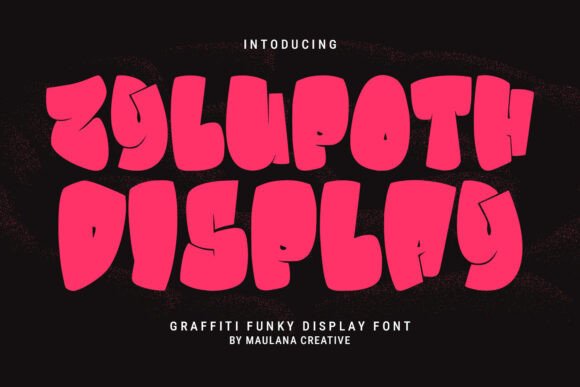
Zylupoth Font: Elevate Your Designs with an Authentic Brush Handcrafted Feel
In the world of graphic design, fonts play a crucial role in conveying the tone and personality of a brand or creative project. With the vast array of fonts available, it can be challenging to find the perfect one that adds a unique touch to your designs. This is where the Zylupoth Font comes in – a game-changing, handcrafted font that gives your designs an authentic, brush-handcrafted feel.
Introducing Zylupoth Graffiti Funky Display Font
The Zylupoth Graffiti Funky Display Font is a one-of-a-kind, handcrafted font designed to add a touch of personality and flair to your designs. With its unique blend of graffiti and funky elements, this font is perfect for designers looking to create bold, eye-catching designs that stand out from the crowd.
Key Features of Zylupoth Font
- Authentic Brush Handcrafted Feel: The Zylupoth Font boasts an authentic, handcrafted feel that adds a touch of warmth and personality to your designs.
- Graffiti-Inspired: With its graffiti-inspired elements, this font is perfect for designers looking to add a bold, edgy touch to their designs.
- Funky and Playful: The Zylupoth Font has a funky, playful vibe that’s perfect for designs that require a bit of personality and whimsy.
- Highly Versatile: This font is perfect for a wide range of design applications, from signature and stationery to logo, typography quotes, magazine or book covers, website headers, flyers, clothing, branding, and packaging design.
Uses of Zylupoth Font
The Zylupoth Font is an incredibly versatile font that can be used in a wide range of design applications. Here are some of the ways you can use this font to elevate your designs:
Design Applications
- Signature and Stationery: Add a touch of personality to your business cards, letterheads, and other stationery with the Zylupoth Font.
- Logo Design: Create a bold, eye-catching logo that stands out from the crowd with this unique font.
- Typography Quotes: Use the Zylupoth Font to create inspiring, motivational quotes that add a touch of personality to your designs.
- Magazine or Book Covers: Add a bold, attention-grabbing touch to your magazine or book covers with this font.
- Website Headers: Elevate your website headers with a touch of personality and whimsy.
- Flyers and Brochures: Use the Zylupoth Font to create eye-catching flyers and brochures that stand out from the crowd.
- Clothing and Apparel: Add a touch of personality to your clothing and apparel designs with this unique font.
- Branding and Packaging: Use the Zylupoth Font to create bold, eye-catching branding and packaging designs that reflect your brand’s personality.
Benefits of Using Zylupoth Font
The Zylupoth Font offers a range of benefits that make it an ideal choice for designers looking to add a touch of personality to their designs. Here are some of the benefits of using this font:
Why Choose Zylupoth Font?
- Unique and Authentic: The Zylupoth Font offers a unique, authentic look that’s perfect for designers looking to add a touch of personality to their designs.
- Highly Versatile: This font is perfect for a wide range of design applications, making it a great addition to any designer’s toolkit.
- Easy to Read: Despite its bold, playful vibe, the Zylupoth Font is easy to read, making it perfect for designs that require a bit of personality and whimsy.
- Time-Saving: With the Zylupoth Font, you can create professional-looking designs in a fraction of the time it would take to create them from scratch.
Tips for Using Zylupoth Font
To get the most out of the Zylupoth Font, here are some tips to keep in mind:
Design Tips
- Experiment with Different Sizes: Don’t be afraid to experiment with different font sizes to find the perfect balance for your design.
- Pair with Other Fonts: The Zylupoth Font pairs well with other fonts, so don’t be afraid to experiment with different font combinations.
- Use in Combination with Images: The Zylupoth Font looks great in combination with images, so consider using it in conjunction with photos or illustrations.
- Keep it Simple: While the Zylupoth Font is bold and playful, it’s still important to keep your design simple and easy to read.
In conclusion, the Zylupoth Font is a game-changing, handcrafted font that gives your designs an authentic, brush-handcrafted feel. With its unique blend of graffiti and funky elements, this font is perfect for designers looking to add a touch of personality and whimsy to their designs. Whether you’re creating a logo, typography quotes, magazine or book covers, website headers, flyers, clothing, branding, or packaging design, the Zylupoth Font is the perfect choice.